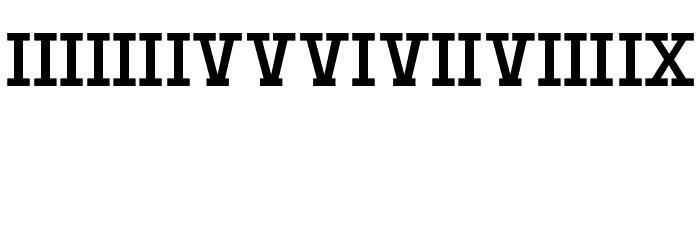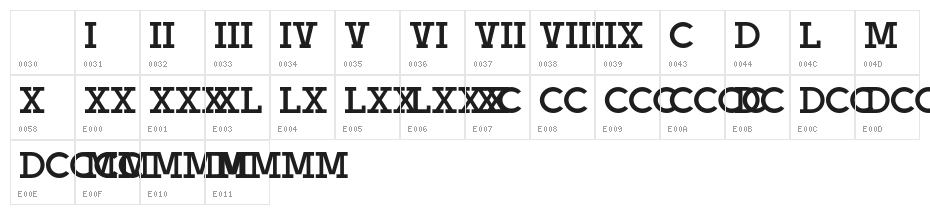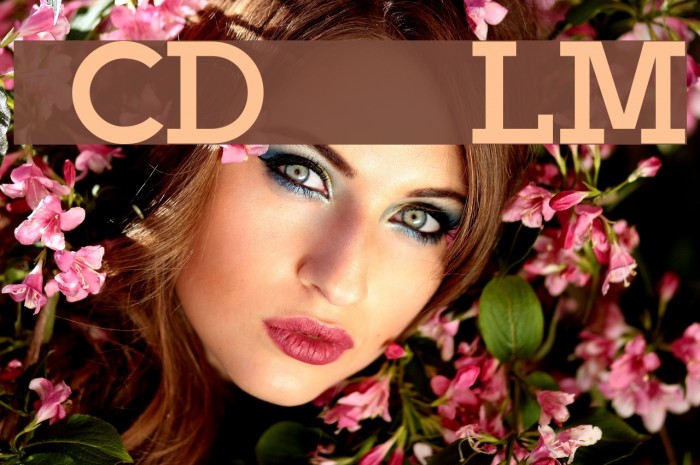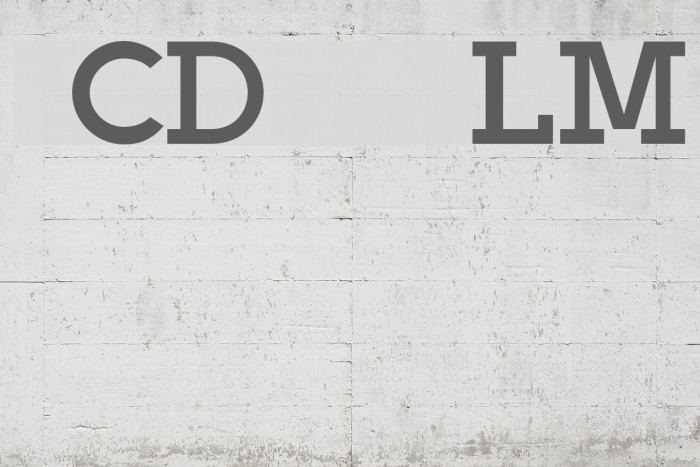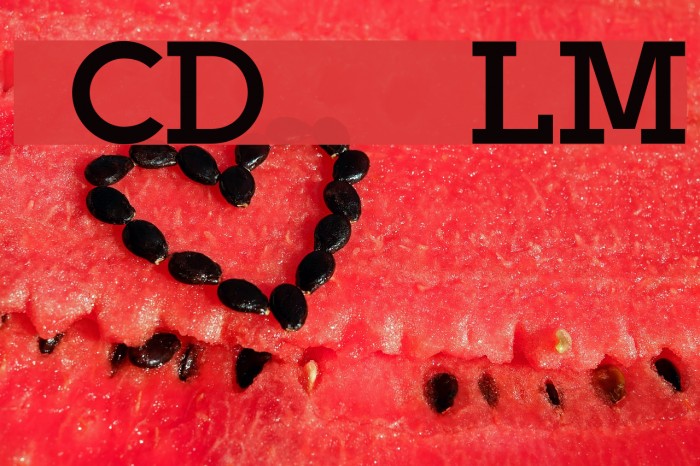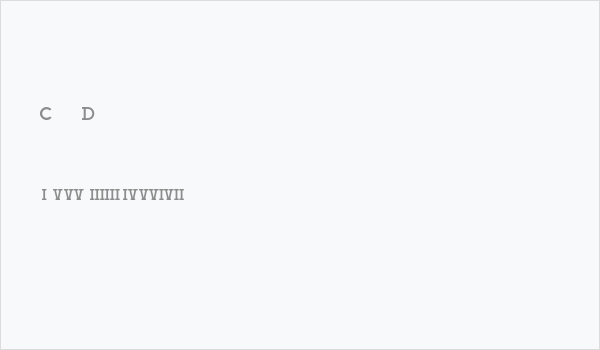
BPlatinNumerals Font
BPlatinNumerals Description
This font features bold, uppercase Roman numerals with a classic and authoritative appearance. The characters are evenly spaced and have a consistent stroke width, giving them a strong and impactful presence. The design is clean and straightforward, making it suitable for formal and traditional contexts. The font's simplicity and clarity ensure readability, even at smaller sizes, while its boldness adds a sense of importance and gravitas.
| Use Case | Headlines, Formal documents, Clocks |
| Proposed Projects | Ideal for use in formal documents, historical publications, clocks, watches, and any project requiring a traditional Roman numeral representation. |